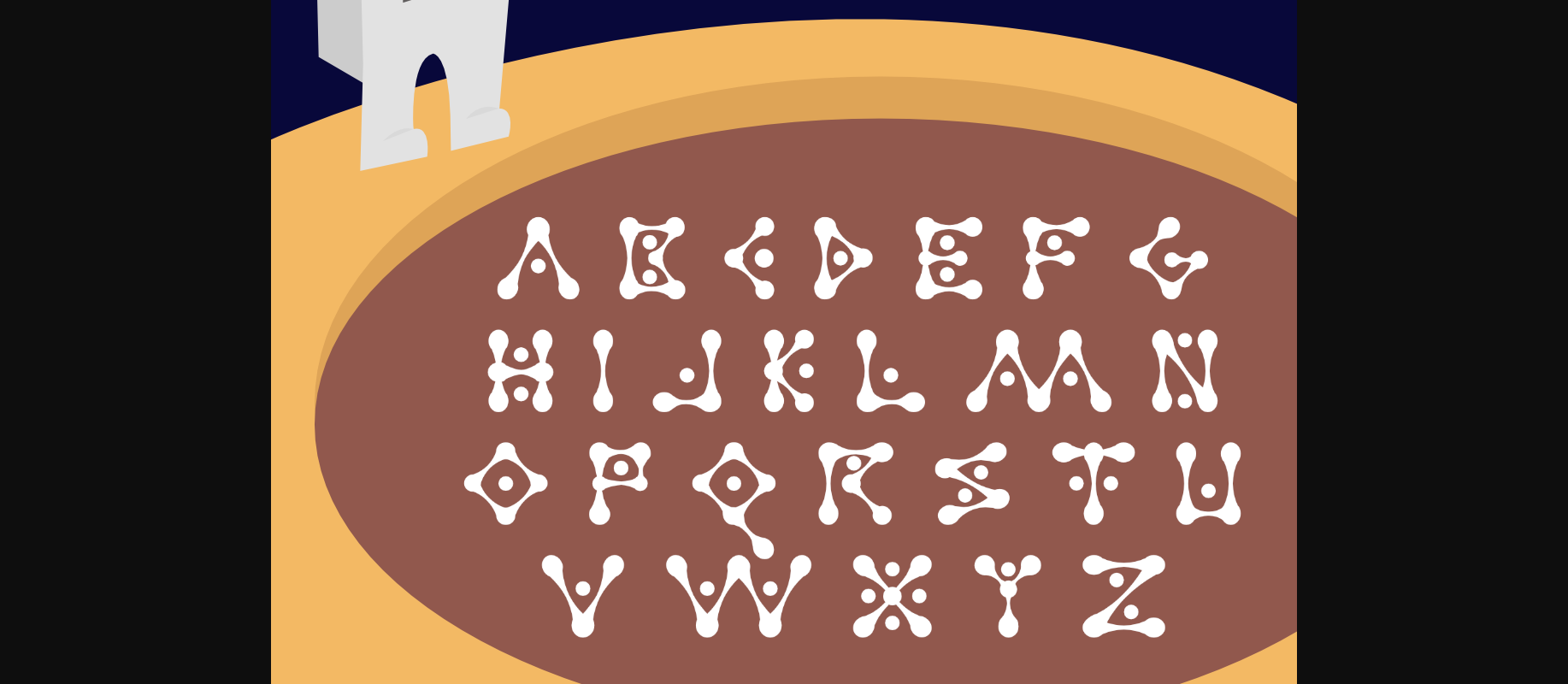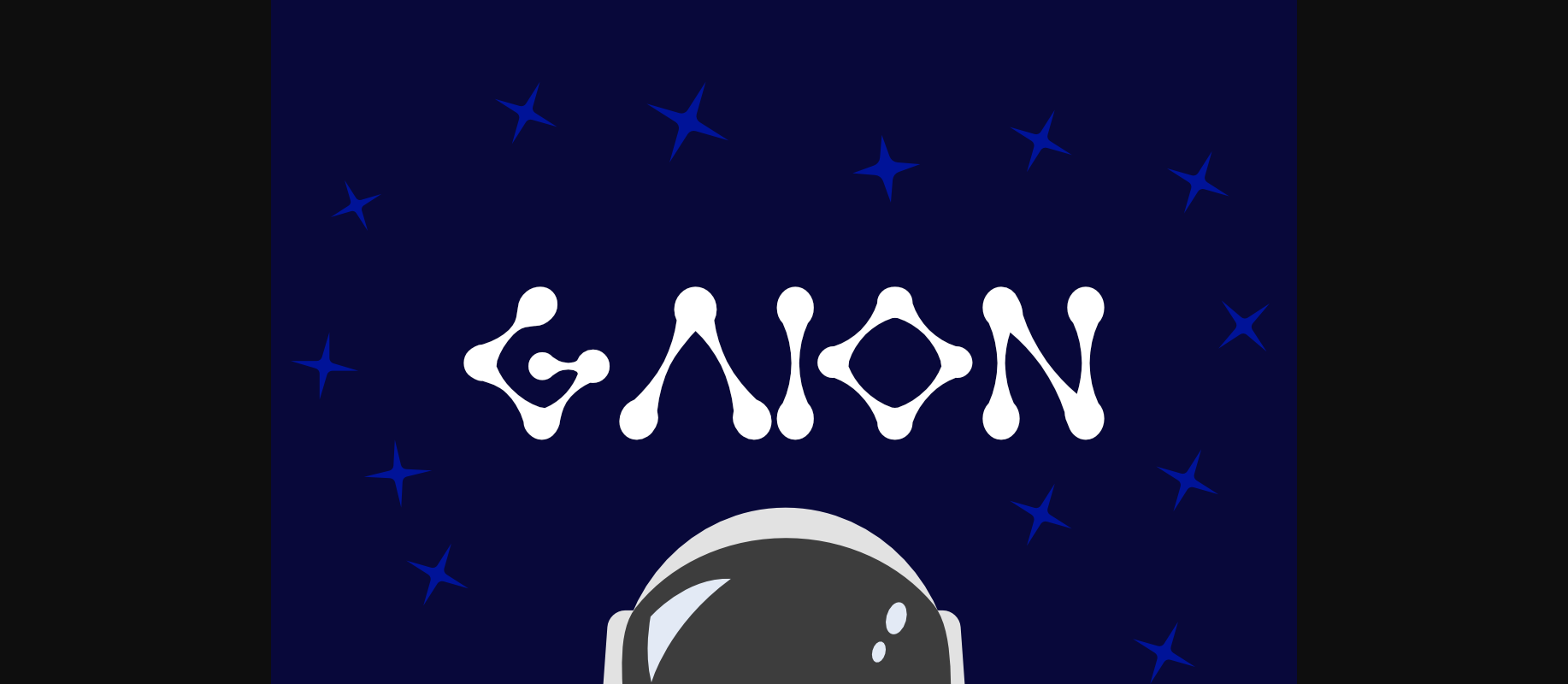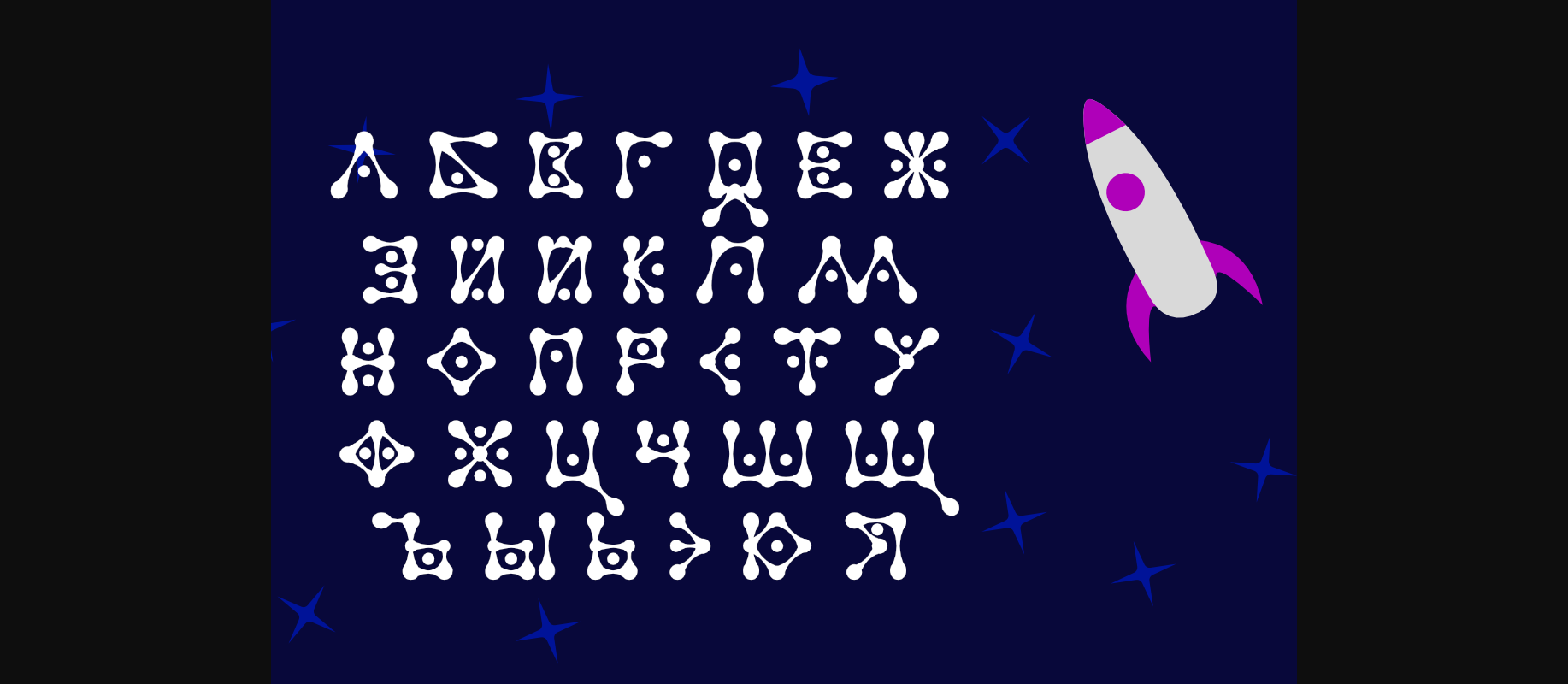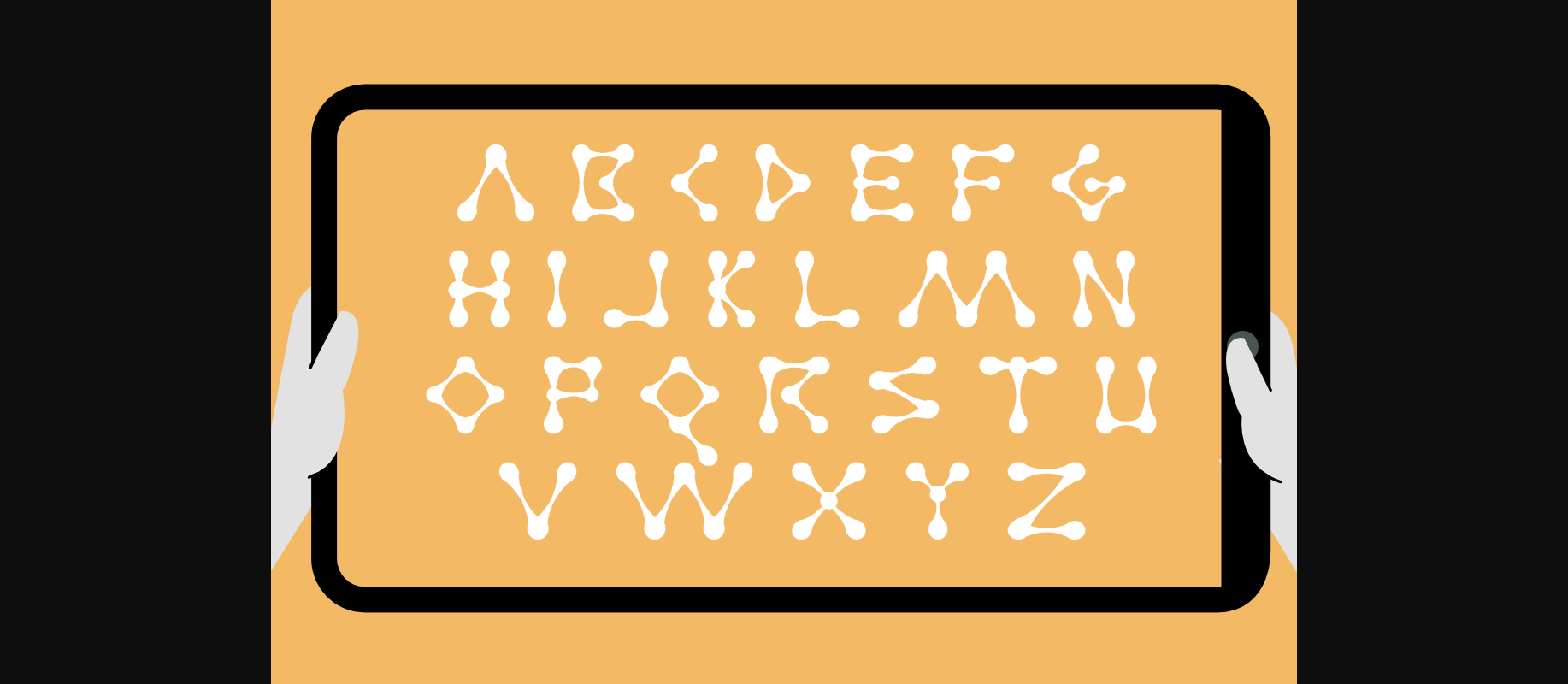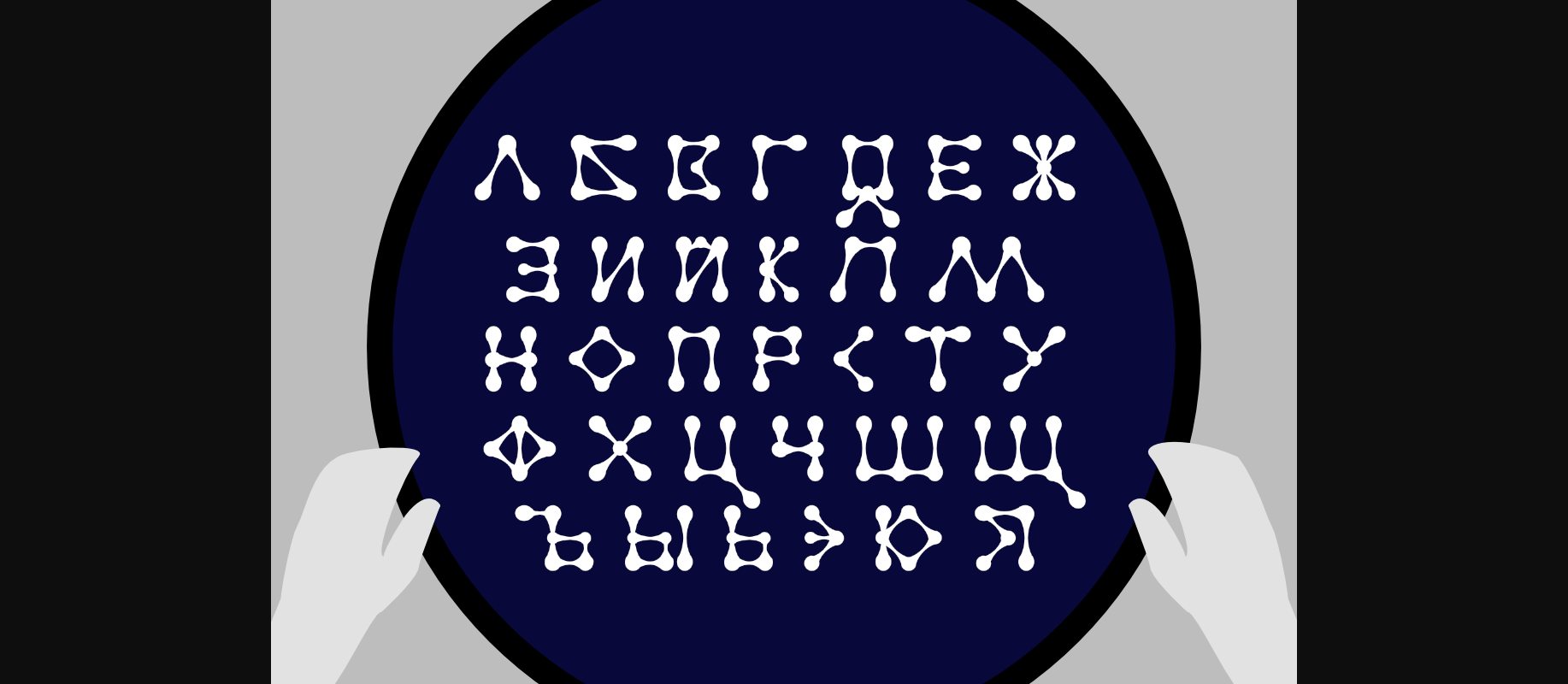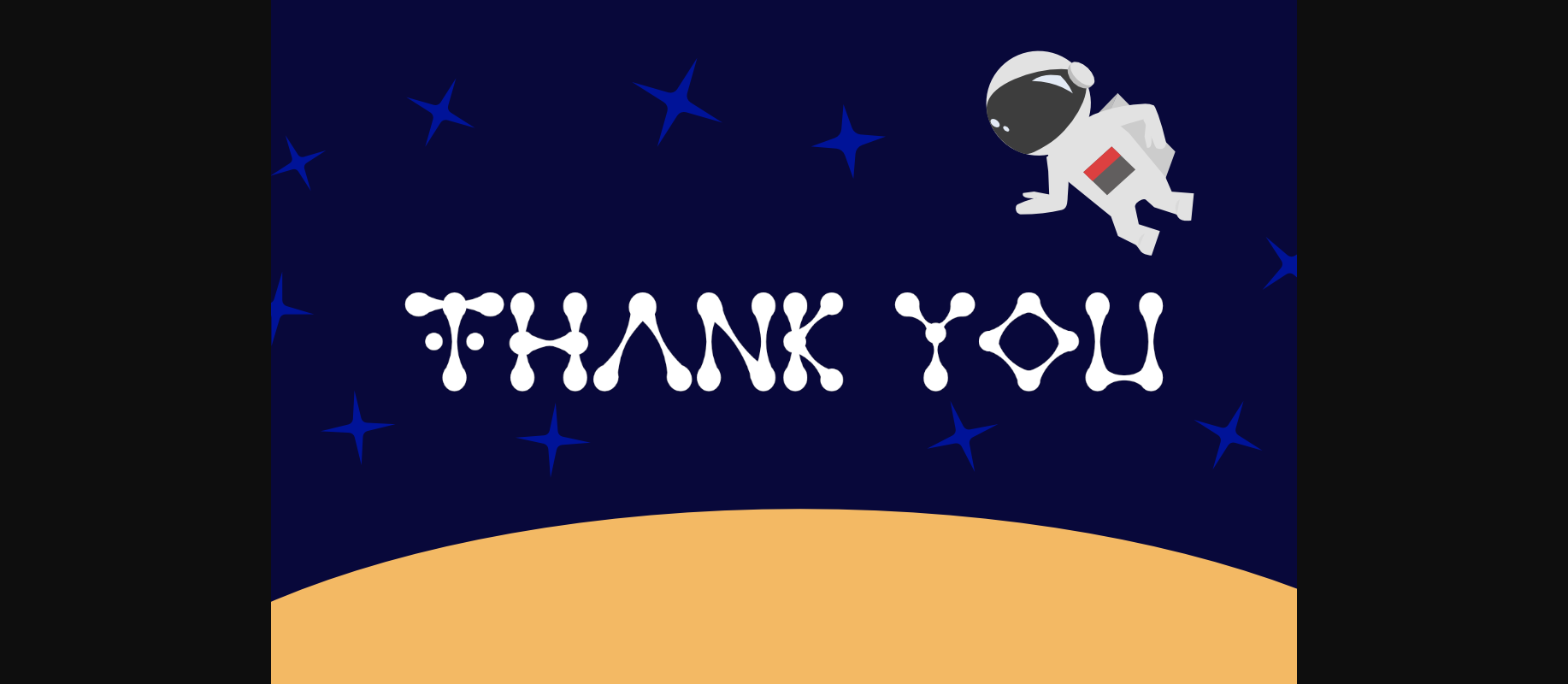
Gaion Font
About Gaion Font
Gaion is an interesting and incredibly unique decorative font. Add it to your creative ideas and notice how it makes them stand out!